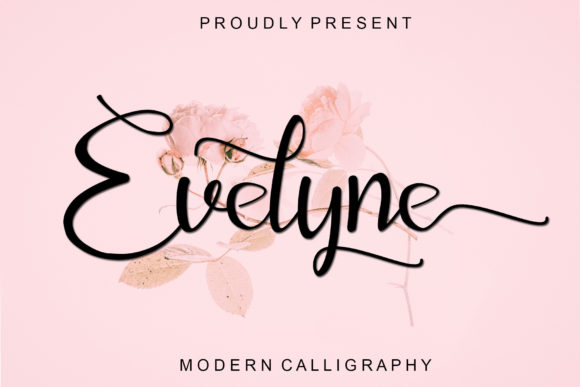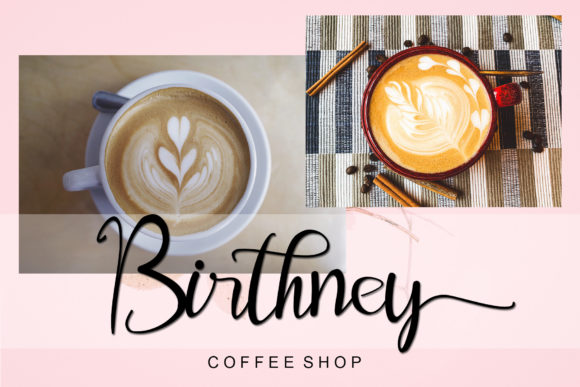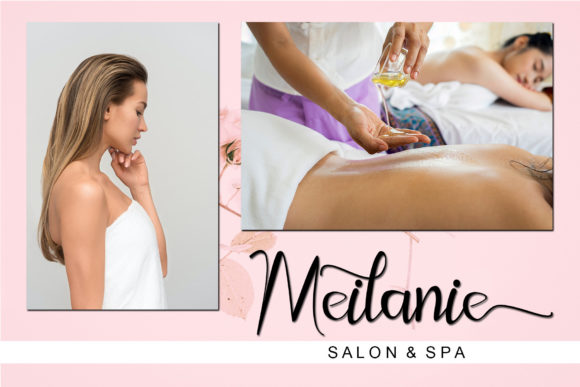
About Evelyne Font
Evelyne is a modern script font by Letterafa. It has flowing letters that will give your designs a unique and sweet look. Evelyne is perfect for greeting cards, package design, brand identity, craft design, any DIY project.This font is PUA encoded which means you can access all of the glyphs and swashes with ease!